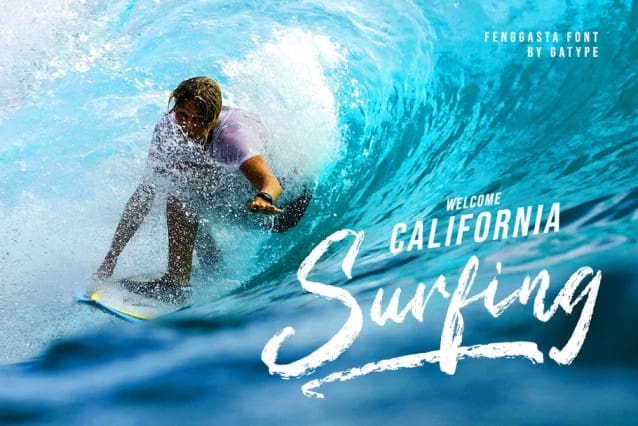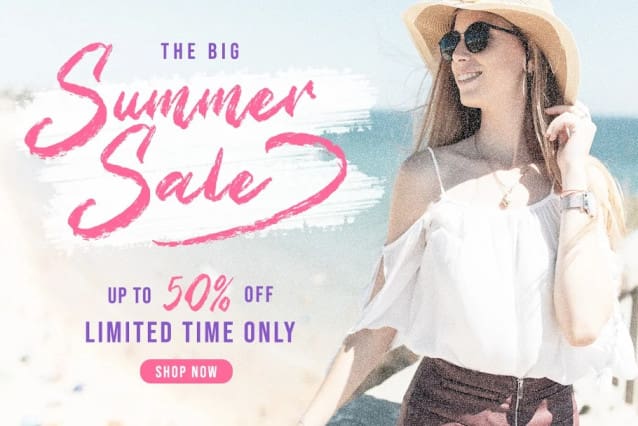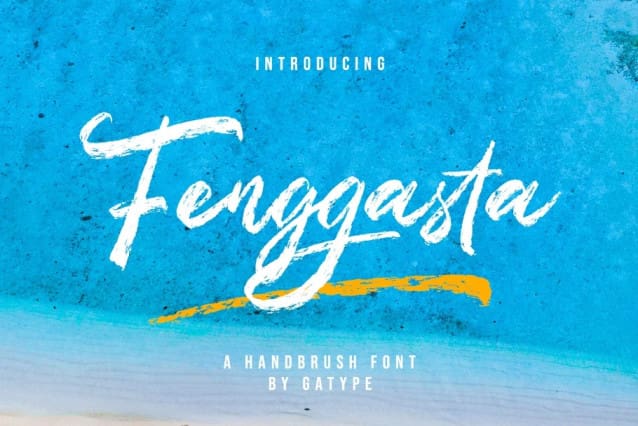
Fenggasta Brush Font
Fenggasta Brush Font, is a beautiful handwritten font suitable for a variety of projects such as clothing, poster, book titles, stationery designs, quotes, branding, logos, invitations, greeting cards, T-shirts, packaging designs, and more.